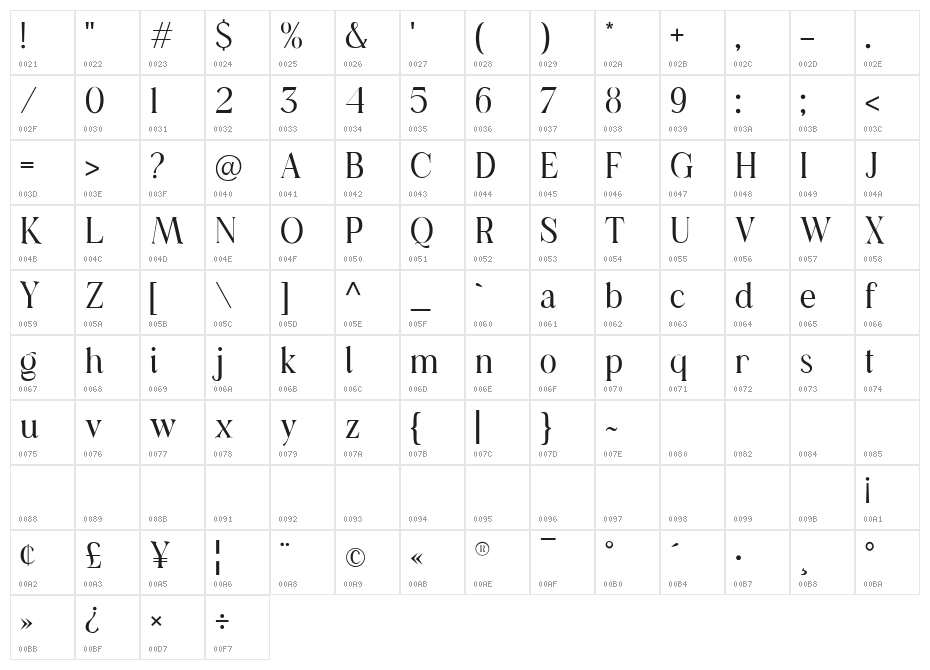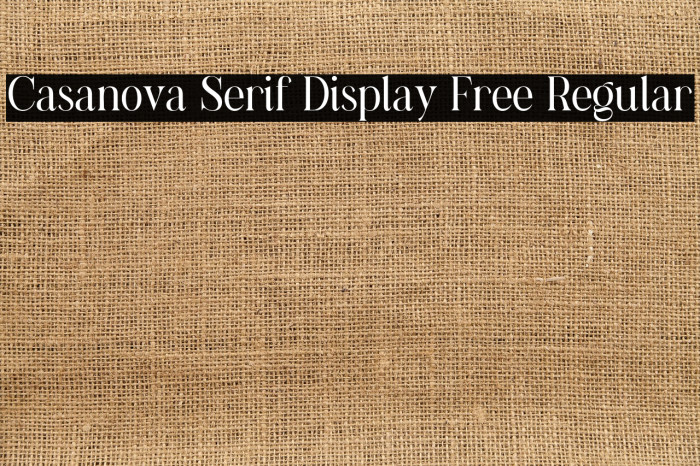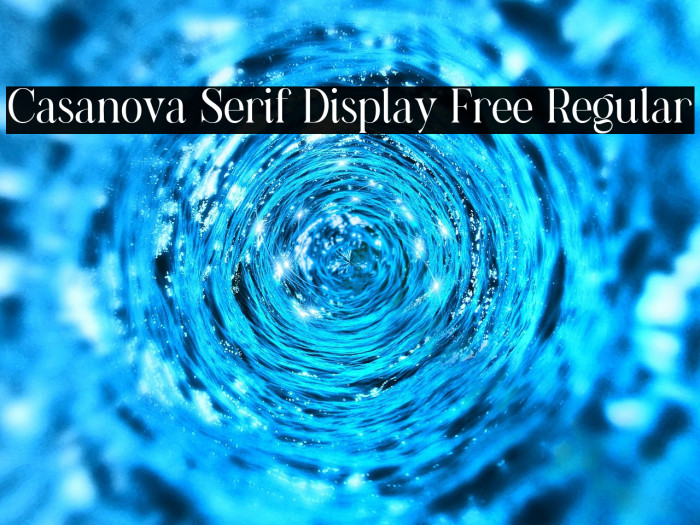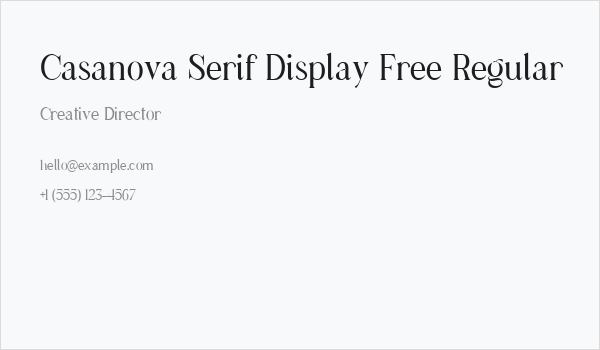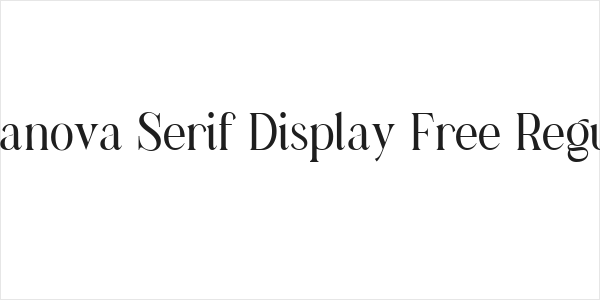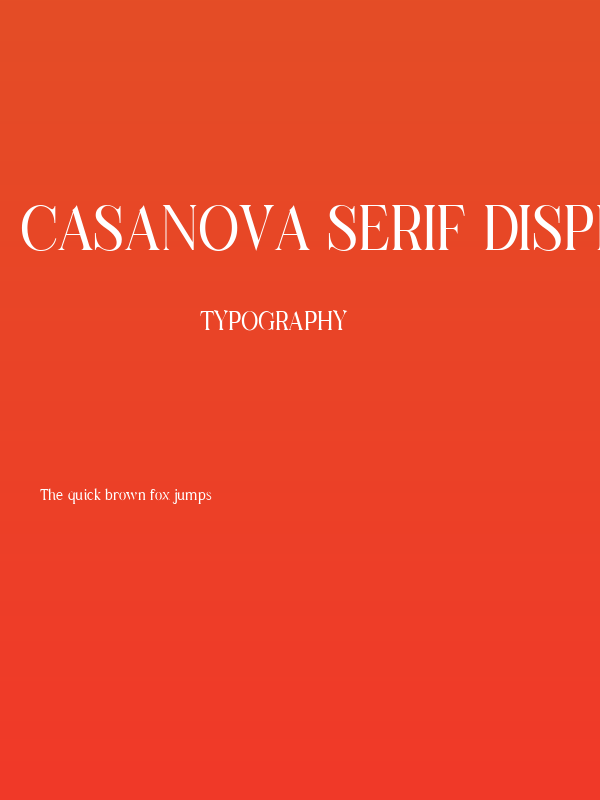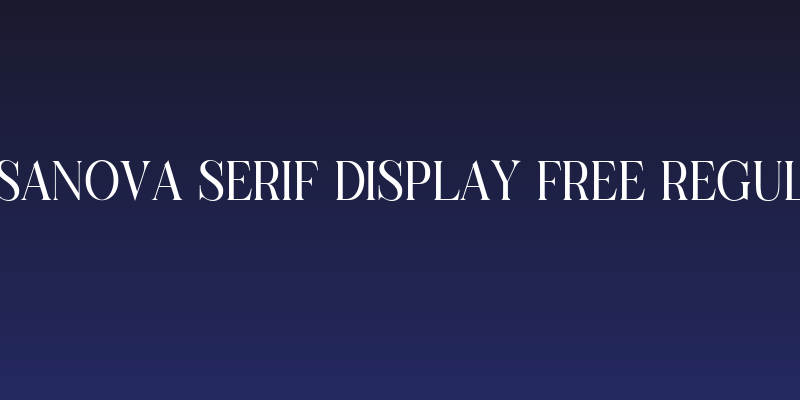
Casanova Serif Display Free Regular Font
Casanova Serif Display Free Regular Description
This font exudes elegance and sophistication with its refined serif style. The characters are designed with a high contrast between thick and thin strokes, giving it a classic yet modern appeal. The uppercase letters are tall and stately, while the lowercase letters maintain a graceful flow. The numerals are distinct and easy to read, complementing the overall aesthetic. Special characters are crafted with attention to detail, enhancing the font's versatility. Its design is suitable for projects that require a touch of class and readability.
Overall StyleClassic
Use CaseHeadlines, Logos, Editorial design
Proposed ProjectsIdeal for luxury branding, editorial design, wedding invitations, and high-end product packaging.